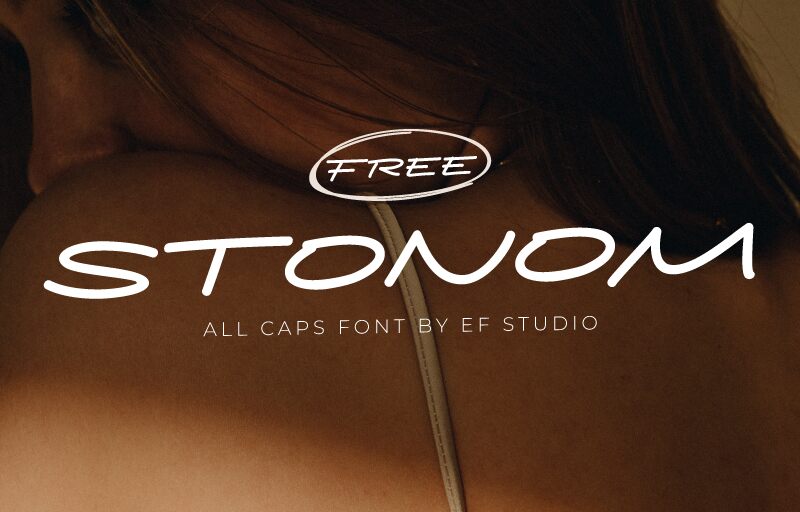
Stonom
Stonom font by Ef Studio is a casual, modern handwritten font designed with expanded width. It features a smooth flow, consistently styled letters, and a lively character that stands out even in its simplicity. The font combines aspects of classic and contemporary styles for bringing out typography that’s incredibly simple yet attractive.